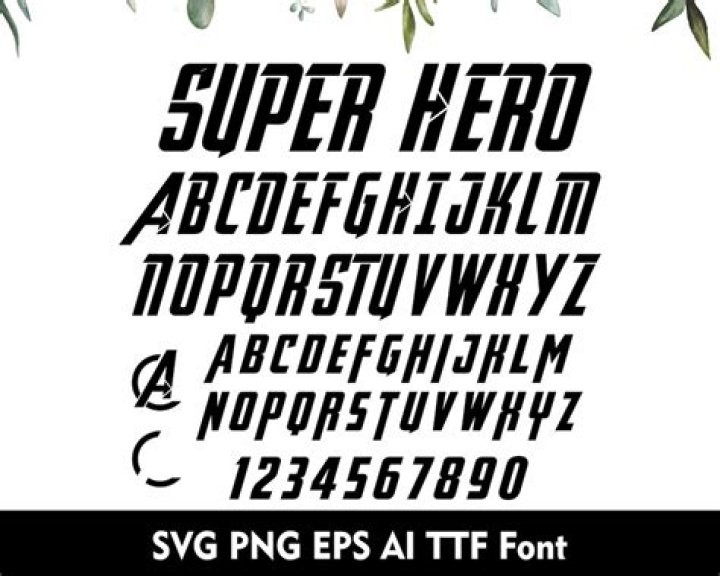
The Hero free font is a typeface applicable for any type of graphic design, be it web, print, motion graphics etc and perfect for t-shirts and other items like posters, logos. 3 Hero FREE fonts available: Hero Bold, Hero Light, Hero Regular.